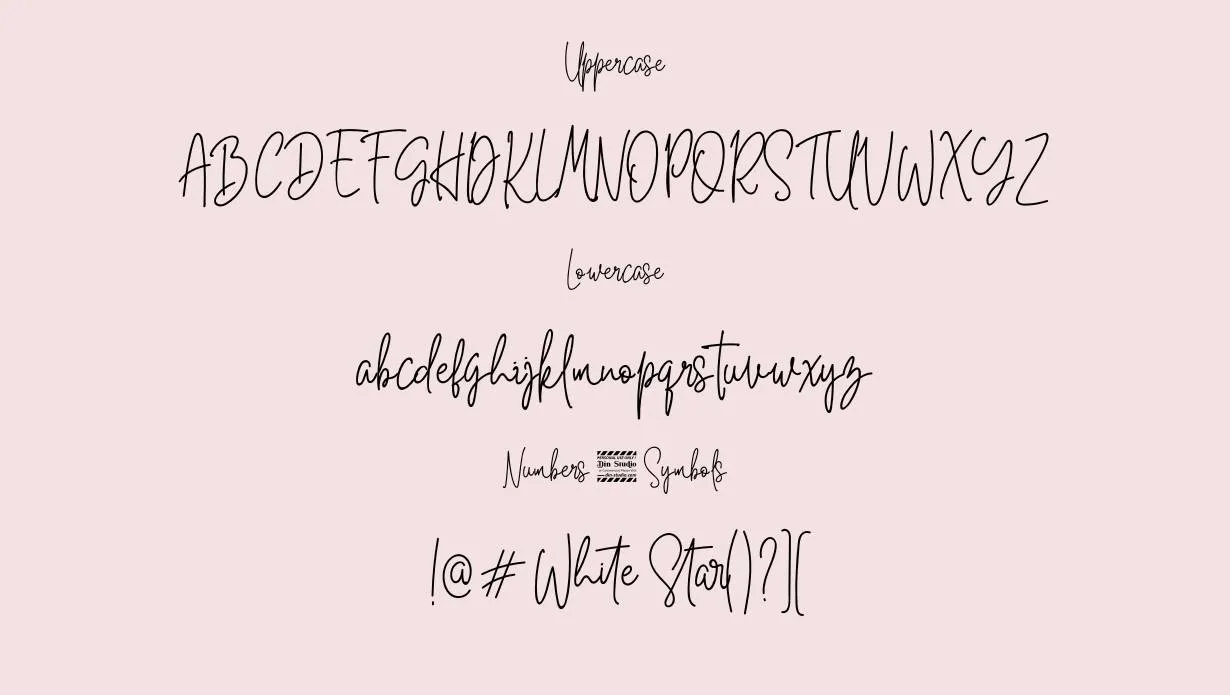
The White Star Handwritten font emanates an intimate and personal quality, often embraced in personal blogs, invitations, or informal designs seeking a touch of authenticity.
| Name | White Star Handwritten Font |
| Designer | Donis Miftahudin |